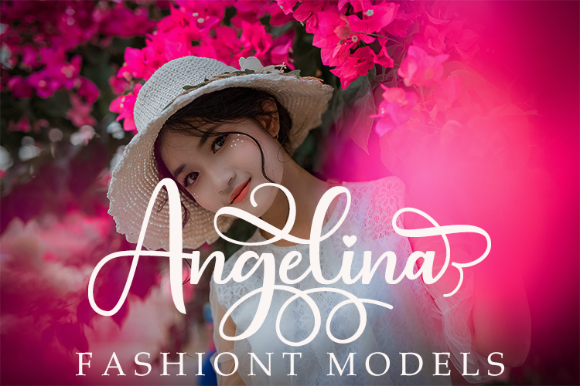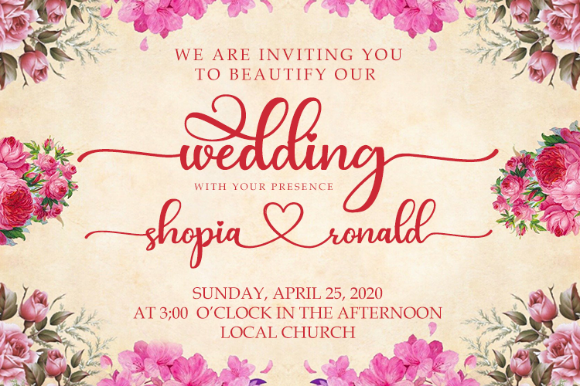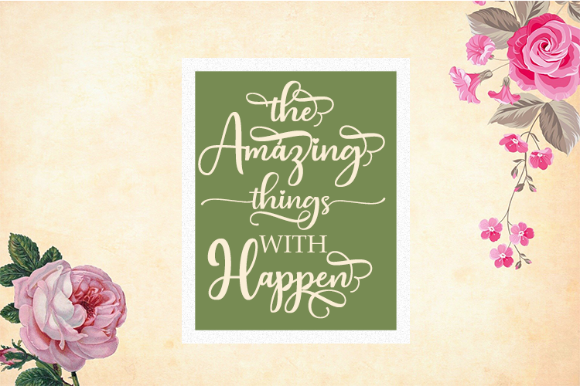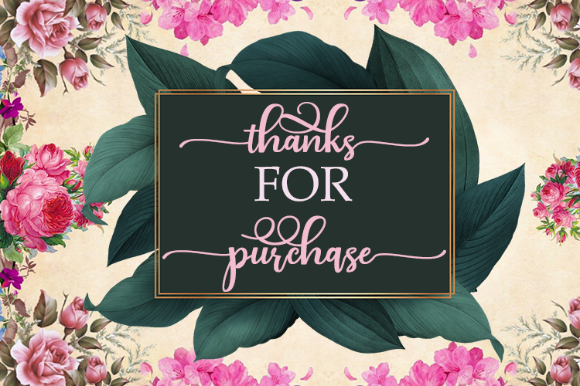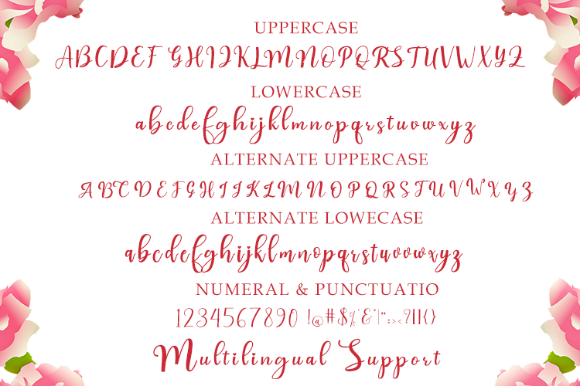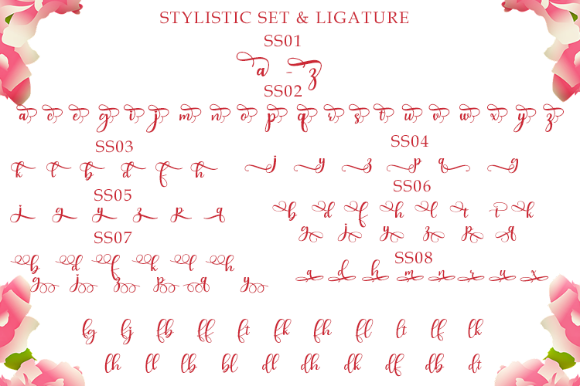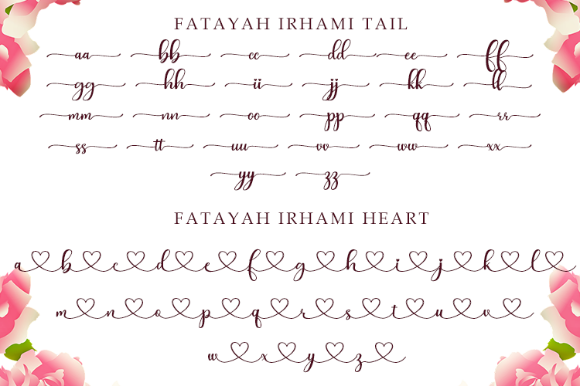
Fatayah Irhami Font
About Fatayah Irhami Font
Fatayah Irhami feels joyful and elegant. It looks lovely on wedding invitations, thank you cards, quotes, greeting cards, logos, business cards and every other design which needs a handwritten touch.